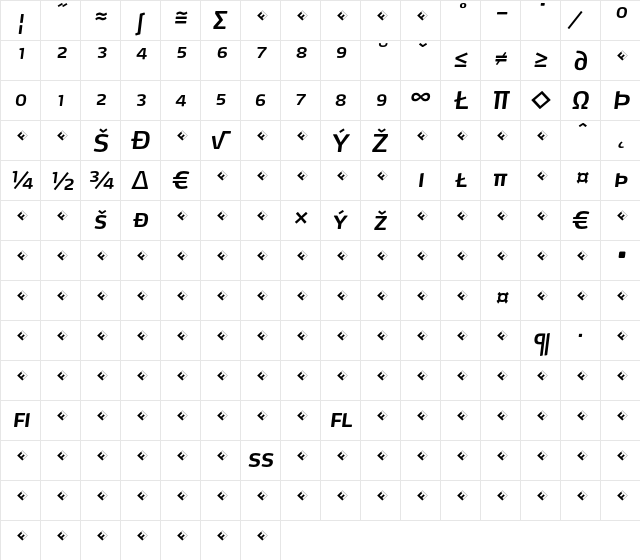
Max-SemiBoldItalicSCExpert Regular
Design Context for Max-SemiBoldItalicSCExpert Typeface
Max-SemiBoldItalicSCExpert takes a measured approach to typography — its balanced proportions and neutral character make it a reliable workhorse for both digital and print work. The slanted form adds forward momentum and visual energy. Its bold stroke weight gives it real presence on the page.
Pro Tip: Use Max-SemiBoldItalicSCExpert for emphasis, pull quotes, and subheadings where its slanted energy can add rhythm to the layout.